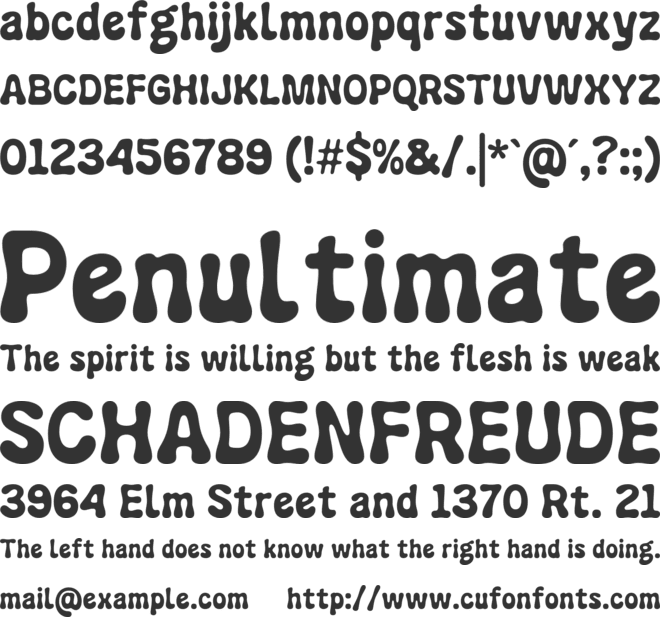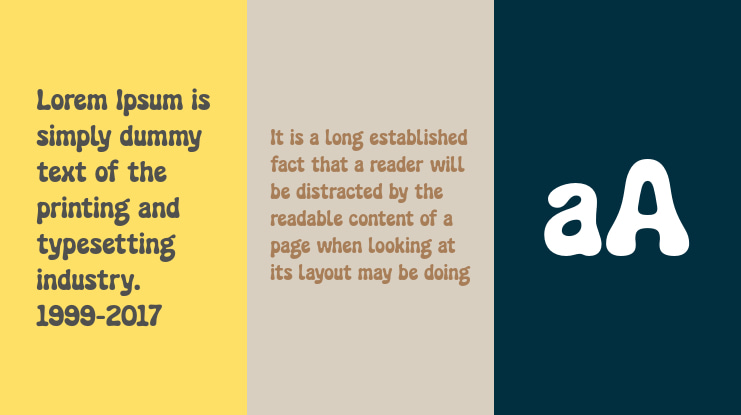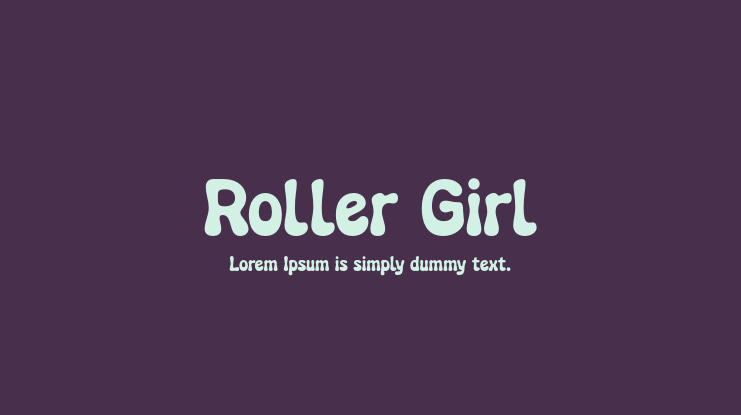
Roller Girl Font
Surplus Type Co.
This is a funny dan retro display font, It embodies playfulness and authenticity and is the perfect choice for branding or school project. Roller Girl has easy going curves and a laid back aesthetic. It has a ton of ligatures in both upper and lower case that can help you create unique designs that stand out.